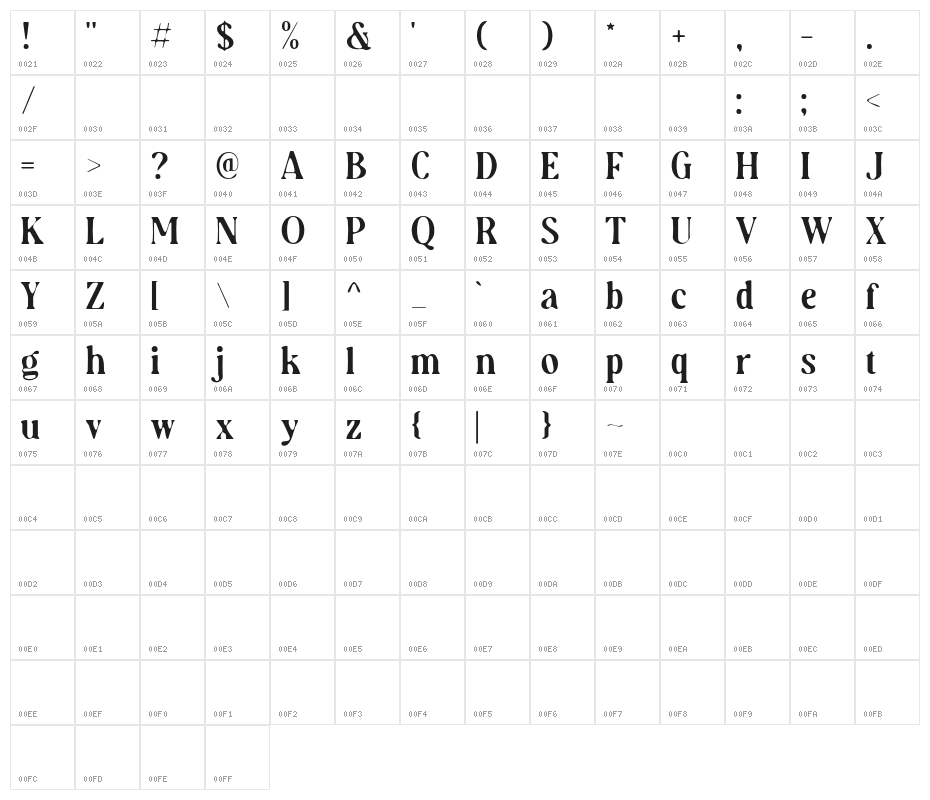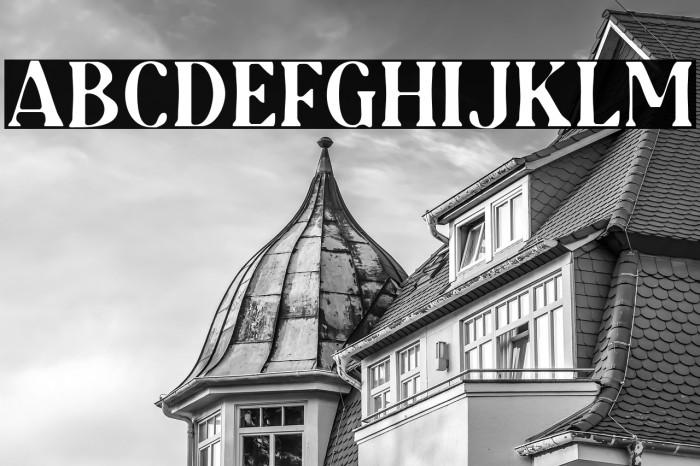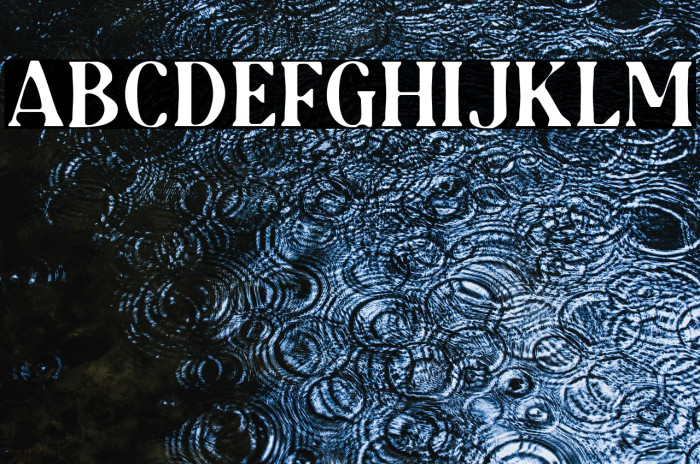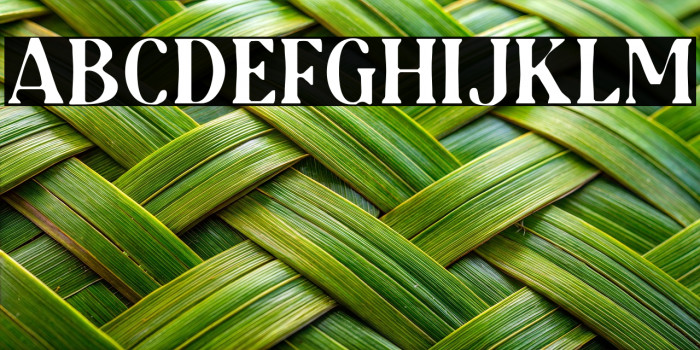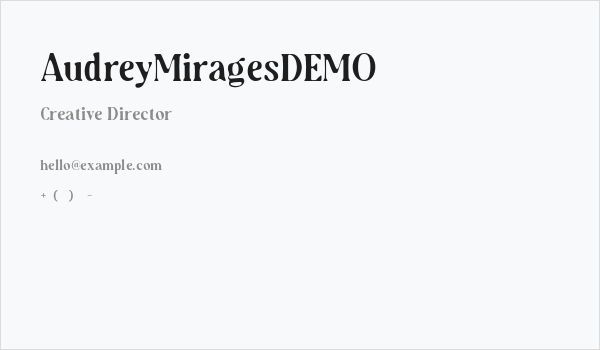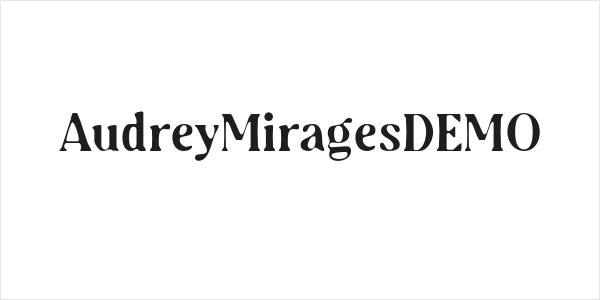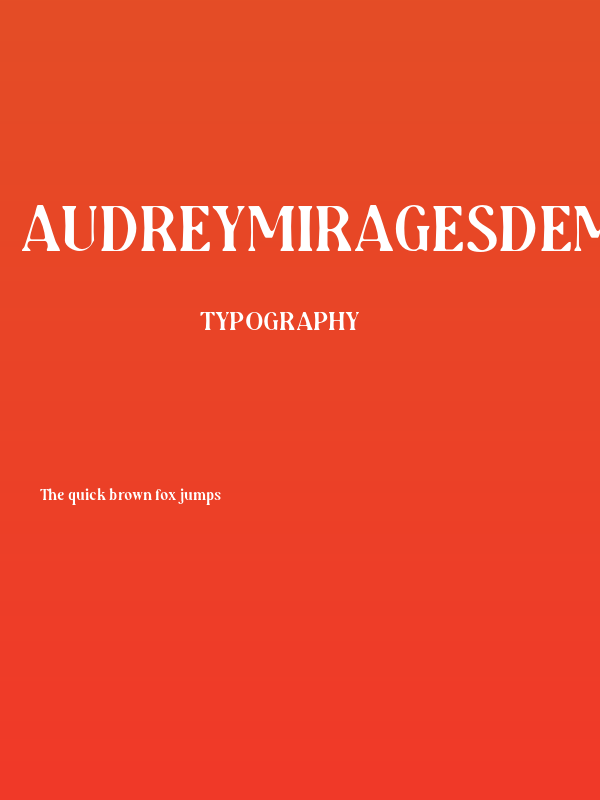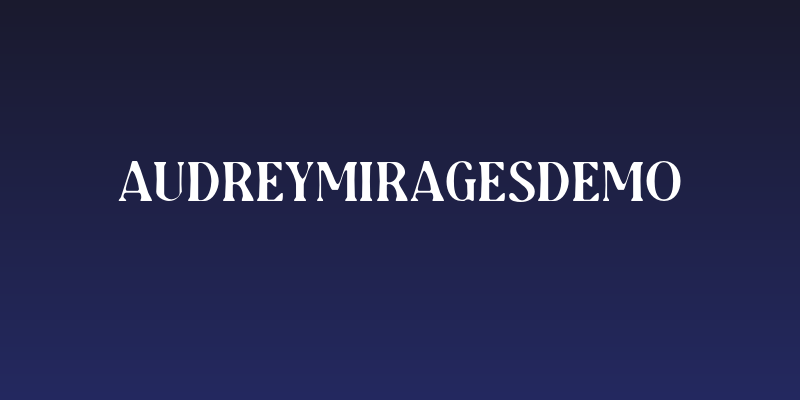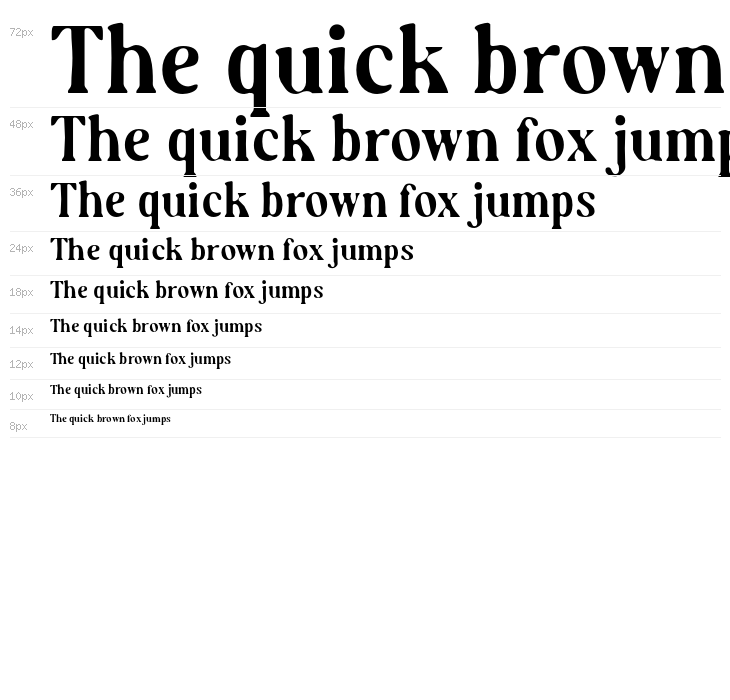
AudreyMiragesDEMO Font
AudreyMiragesDEMO Description
This font features a bold and expressive design with a strong presence. The uppercase letters are characterized by their thick, sturdy strokes and subtle curves, giving them a classic yet modern appeal. The lowercase letters maintain a consistent weight, with unique flourishes that add a touch of elegance and personality. The numerals are bold and easily readable, while the special characters complement the overall style with their distinctive shapes. This font's design is both functional and decorative, making it suitable for a variety of applications.
| Proposed Projects | Ideal for branding, headlines, posters, and packaging design where a strong visual impact is desired. |